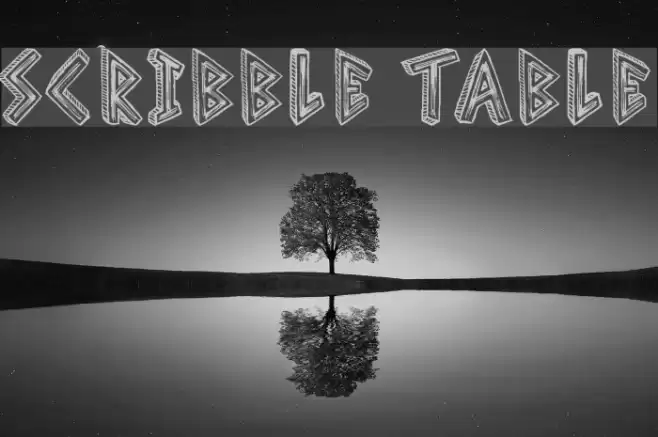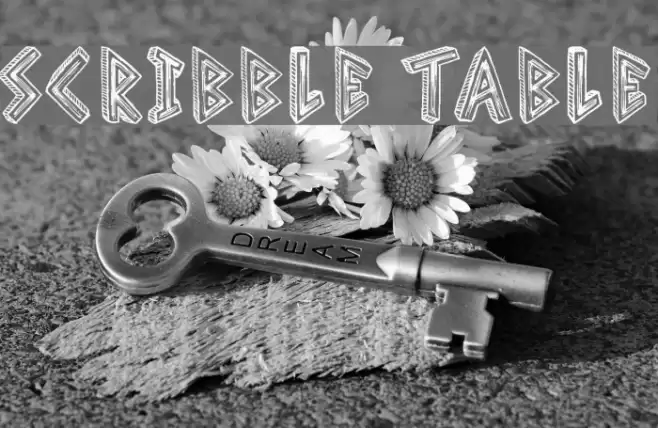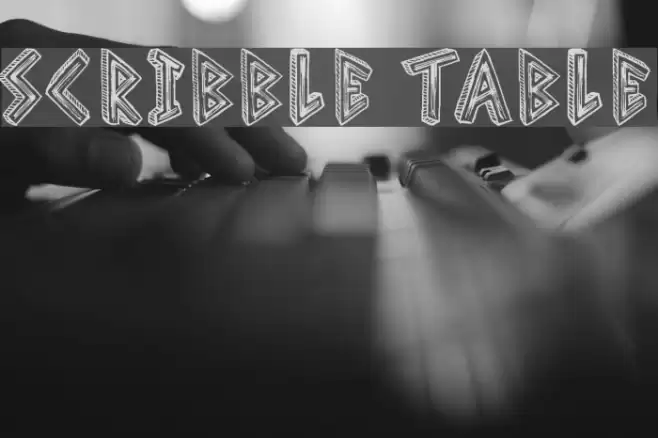
Scribble Table Font
Scribble Table Description
This font features a playful and artistic design, characterized by its hand-drawn, sketch-like appearance. Each letter is outlined with a bold, irregular stroke, giving it a three-dimensional effect. The style is reminiscent of doodles or graffiti, with a dynamic and energetic feel. The uppercase and lowercase letters maintain a consistent style, with exaggerated angles and a slightly uneven baseline, adding to its whimsical charm. The font is highly decorative, making it suitable for creative and informal projects.
A playful, hand-drawn font with a sketch-like, three-dimensional effect from Uncategorized fonts.
- Proposed Projects: Ideal for creative projects such as posters, children's books, comic strips, and artistic branding.